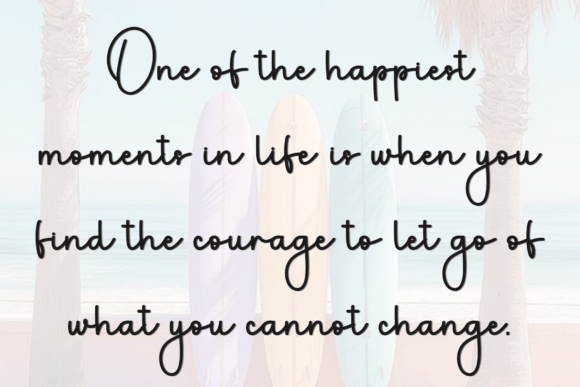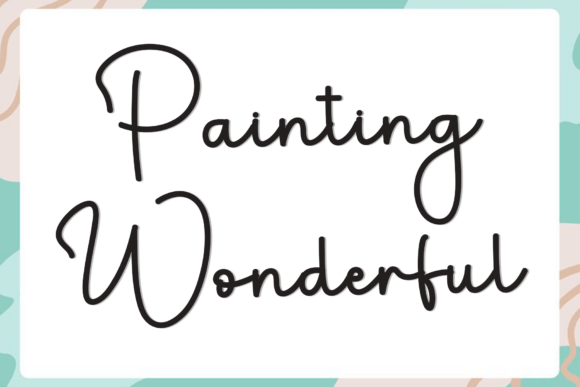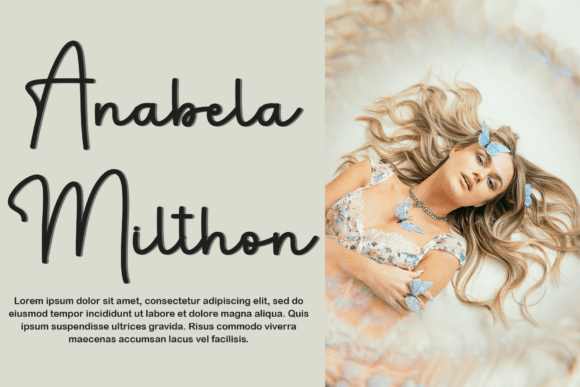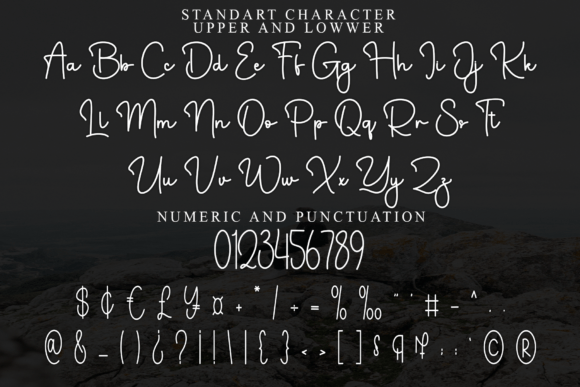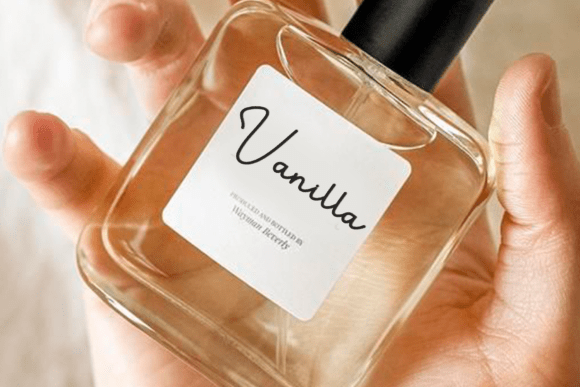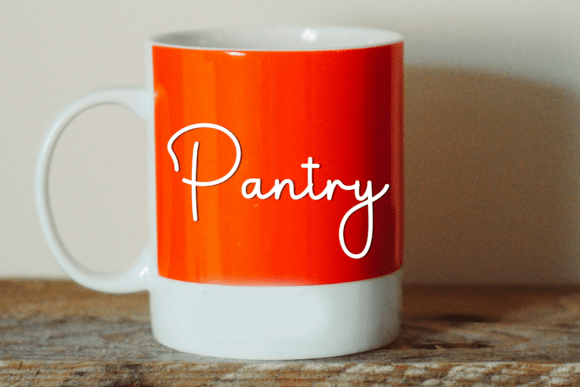
Introduction to Script Doctor Font
As designers, we’ve all been there – staring at a blank canvas, unsure of where to start. The cursor blinks, taunting us with its silence, until suddenly, a spark of inspiration strikes. It’s moments like these that remind us why we love our craft, and why we’re constantly on the lookout for that perfect design resource. For those of us working on healthcare branding, wellness blogs, and professional services, the search for the ideal font is often a top priority.
Enter Script Doctor Font, a high-quality Calligraphy Font Style designed to strike the perfect balance between clinical precision and approachable warmth. With its upright posture and rounded loops, this font exudes a sense of reliability and care – making it the ideal choice for any creative project that values a personal touch.
Key Features of Script Doctor Font
- High-quality, elegant script font ideal for creative projects and design resources.
- Features a unique, hand-crafted design with subtle flair and character.
Honest Review: Script Doctor Font
I recently had the chance to work with the Script Doctor Font, and I must say, it’s a fantastic addition to any designer’s arsenal. This elegant script font is perfect for adding a touch of sophistication to your creative project, whether it’s a logo, branding materials, or even a wedding invitation.
One of the things that stood out to me was the level of detail that went into creating this font. The Script Doctor Font has a high level of quality, with beautiful, flowing lines that are sure to catch the eye. And the best part? It’s a free download, making it an excellent design resource for anyone on a budget.
- May not be suitable for very small font sizes due to the delicate nature of the design
- Limited language support may be a concern for non-English designers
Overall, I’m thoroughly impressed with the Script Doctor Font. Its elegance and sophistication make it a standout choice for any designer, and the fact that it’s free only adds to its appeal. If you’re looking to add a touch of class to your next creative project, I highly recommend giving this font a try.
The Script Doctor Font is perfect for adding a touch of elegance to your creative projects, such as:
Wedding invitations, baby shower invitations, and other special occasion cards
Business logos, branding materials, and marketing collateral
Alternatives to Script Doctor Font
The Great Vibes Font is a beautiful, handwritten font ideal for creative projects requiring a touch of elegance and sophistication. It’s perfect for wedding invitations, branding materials, and other design resources where a high-quality, cursive script is desired.
When compared to Script Doctor Font, Great Vibes Font has a more refined and polished look, making it suitable for formal events and professional design projects. It’s available for free download and offers a transparent background, making it easy to use in various design scenarios.